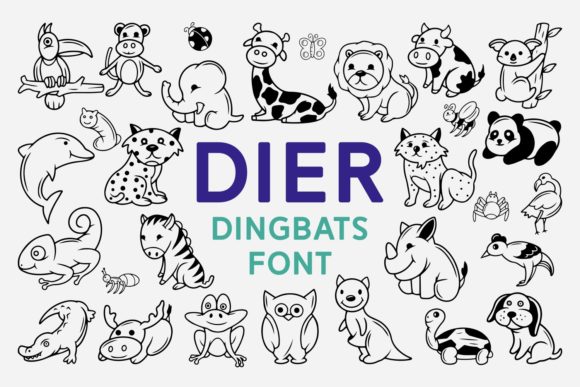
Step into a world of whimsical charm and captivating designs with Dier Dingbats, the font family that will ignite your imagination and bring a smile to your face. Dive into a delightful collection of adorable cartoon animals, each meticulously crafted to infuse your creations with a touch of lighthearted joy.
Journey through a diverse menagerie of creatures from every corner of the globe, brought to life with playful strokes and enchanting details. From the mischievous grin of the Koala to the wide-eyed wonder of the Red Panda, each animal exudes personality and charm that will captivate audiences of all ages.
Unleash your creativity and let your imagination run wild as you explore endless possibilities with Dier Dingbats. Picture vibrant children's t-shirts adorned with playful animal motifs, captivating storybooks that transport readers to magical worlds, and educational materials that engage young minds with delightful illustrations. The applications are limitless, bound only by the reach of your imagination.
With Dier Dingbats, you'll effortlessly elevate your designs, adding a touch of whimsy and wonder that will make your creations stand out from the crowd. Its versatility extends beyond the digital realm, allowing you to bring these charming characters to life in physical form through crafts, home décor, and personalized gifts.